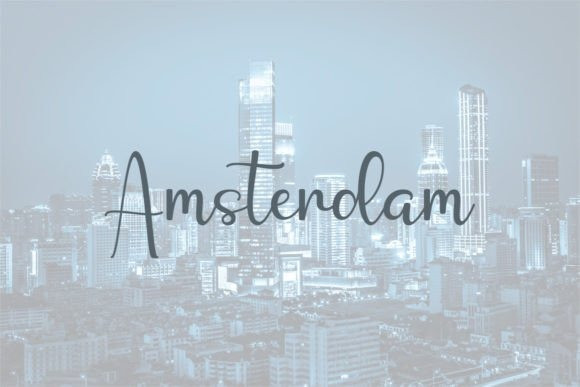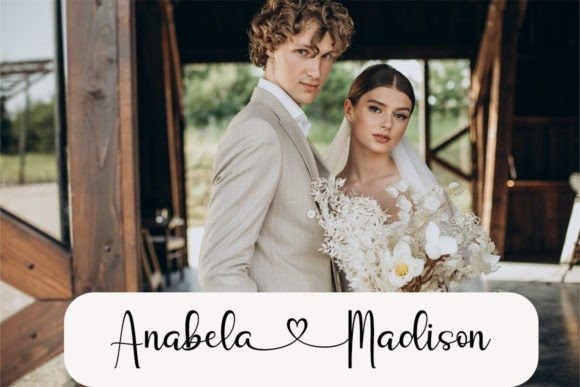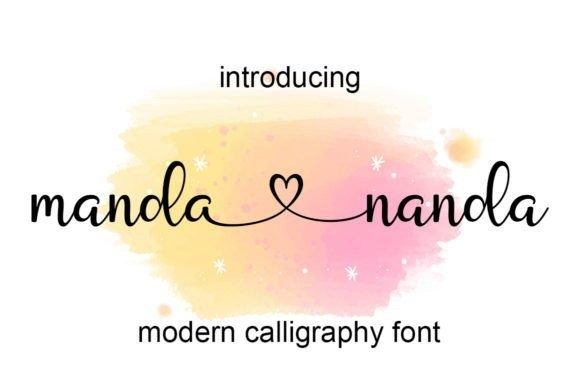
Manda Nanda Font
Manda Nanda Font is an enchanting handwritten font perfect for logos, branding, quotes, clothing, tote bags, business cards, websites, and many more. Fall in love with it, and let it take your projects to the highest level!